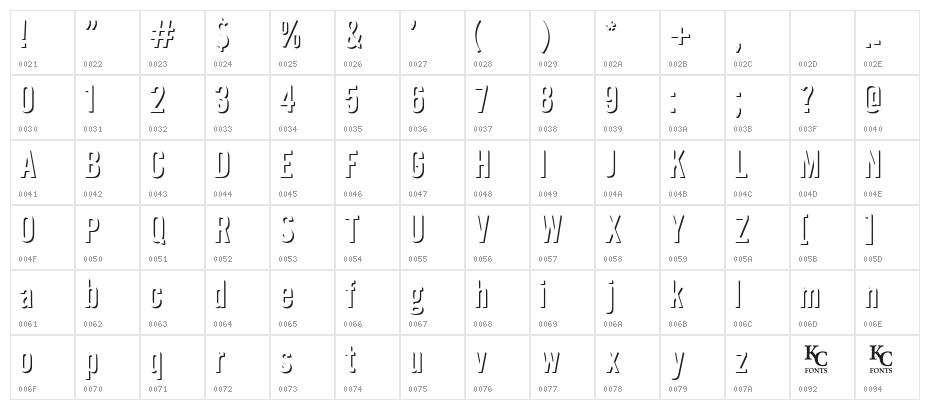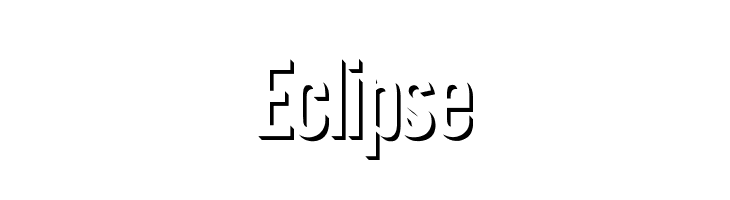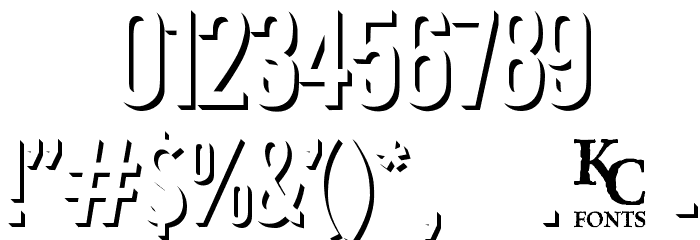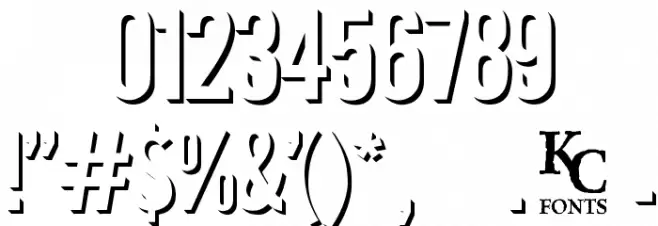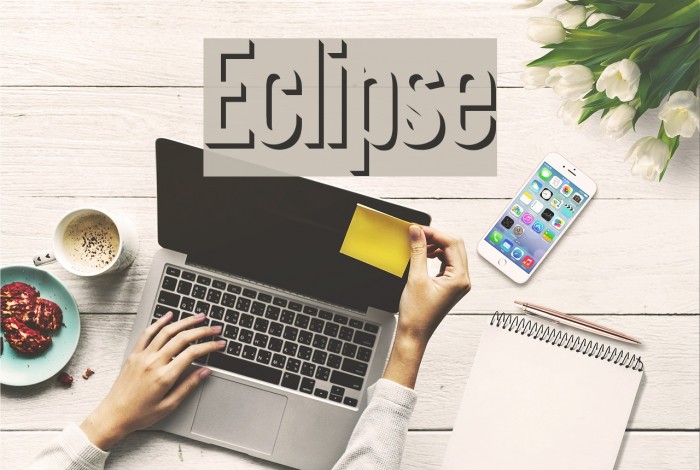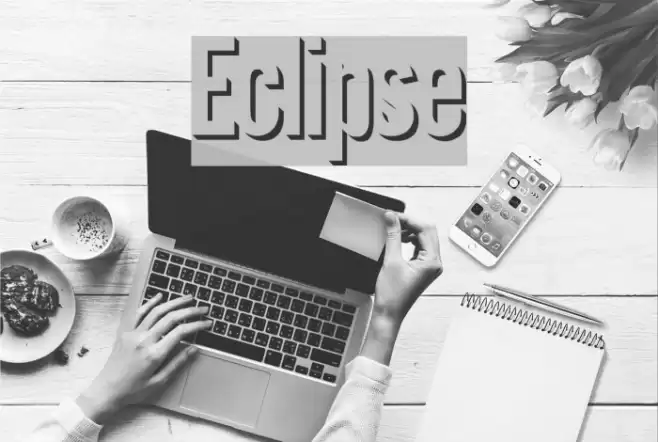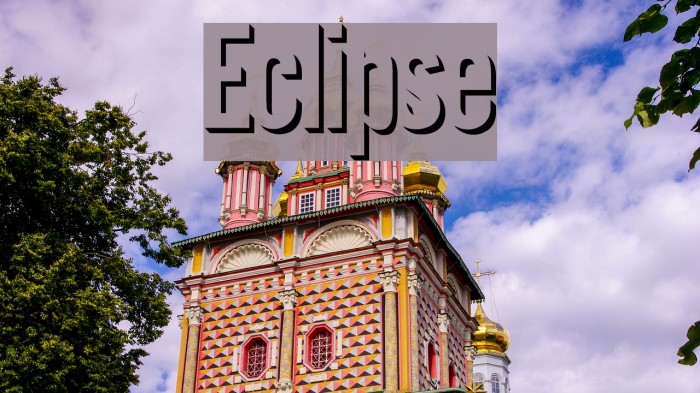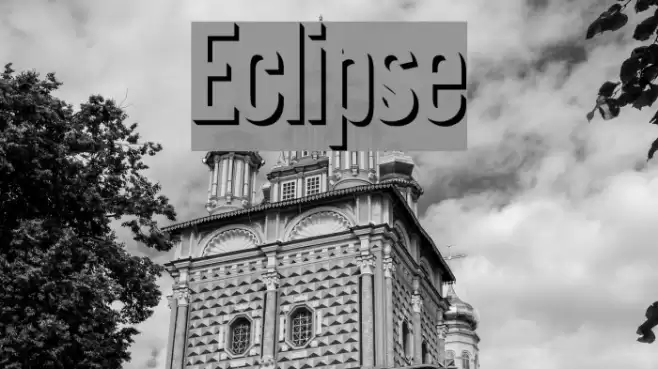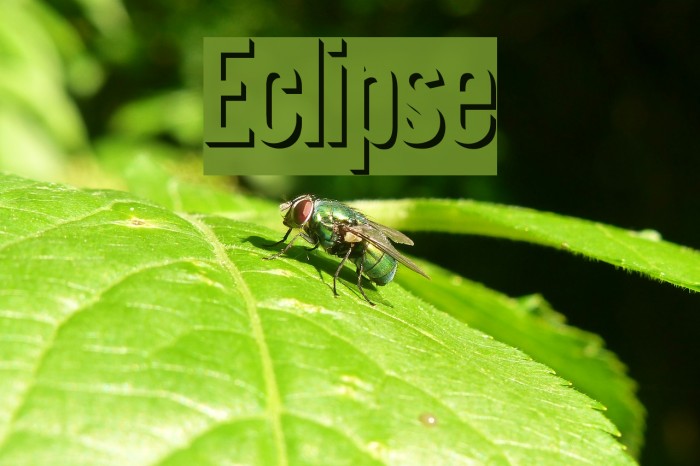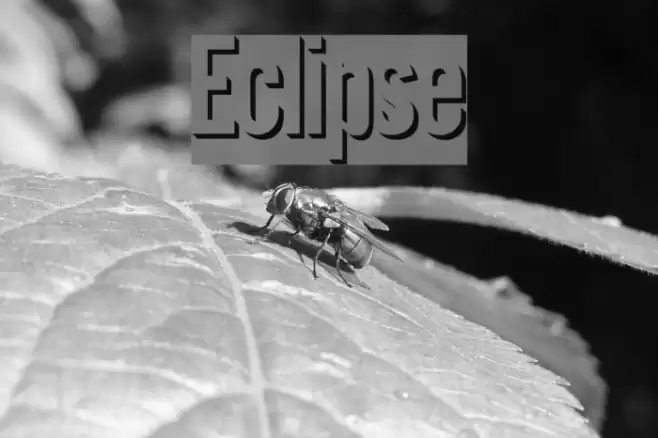
Eclipse Font
Eclipse Description
This font features a bold and impactful design with a distinct shadow effect that gives each character a three-dimensional appearance. The uppercase and lowercase letters maintain a consistent style, with sharp edges and a modern aesthetic. The numerals and special characters are designed to match the boldness of the alphabet, ensuring a cohesive look across all text. The font's unique shadowing adds depth, making it ideal for eye-catching designs.
| Proposed Projects | Ideal for posters, headlines, logos, and any design requiring a strong visual impact. |